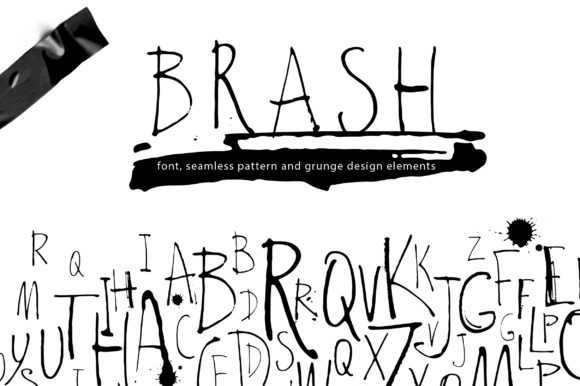
Step into a world of captivating expression with Brash Font, the handwritten script that dances off the page with playful charm. Let your words leap from the ordinary into the extraordinary as you embrace the boundless creativity of this font, lovingly crafted by the skilled hands of svunny.
Unleash your inner artist and watch as your designs take on a life of their own, whether it's on magazine covers, t-shirts, posters, or ceramic mugs. Brash Font effortlessly adds a touch of magic to any project, making heads turn and hearts flutter.
With its energetic strokes and playful curves, Brash Font beckons you to express yourself with audacity and flair. Dive into a sea of letters, each one a brushstroke of personality, ready to weave tales and capture moments.
Indulge in the delightful dance of this font as it gracefully glides across your screen. Let your imagination soar as you witness the transformation of ordinary words into mesmerizing expressions of art. With Brash Font, the possibilities are endless, and your creative genius will shine brighter than ever before.